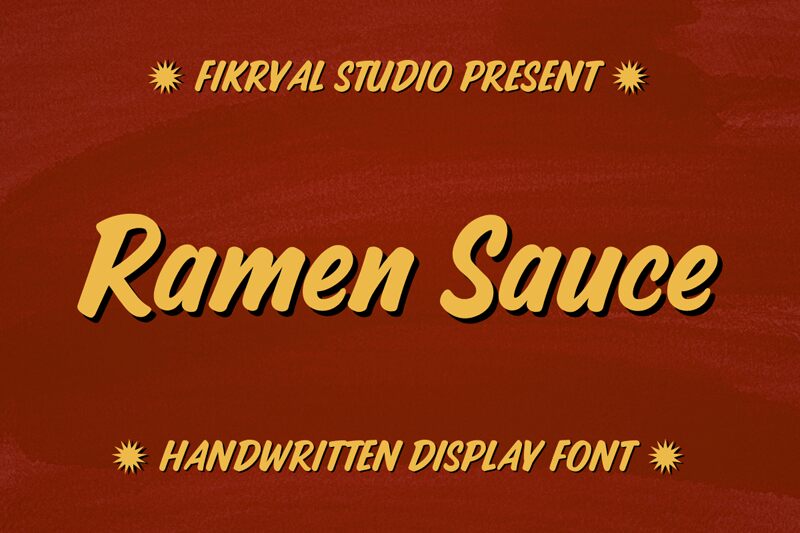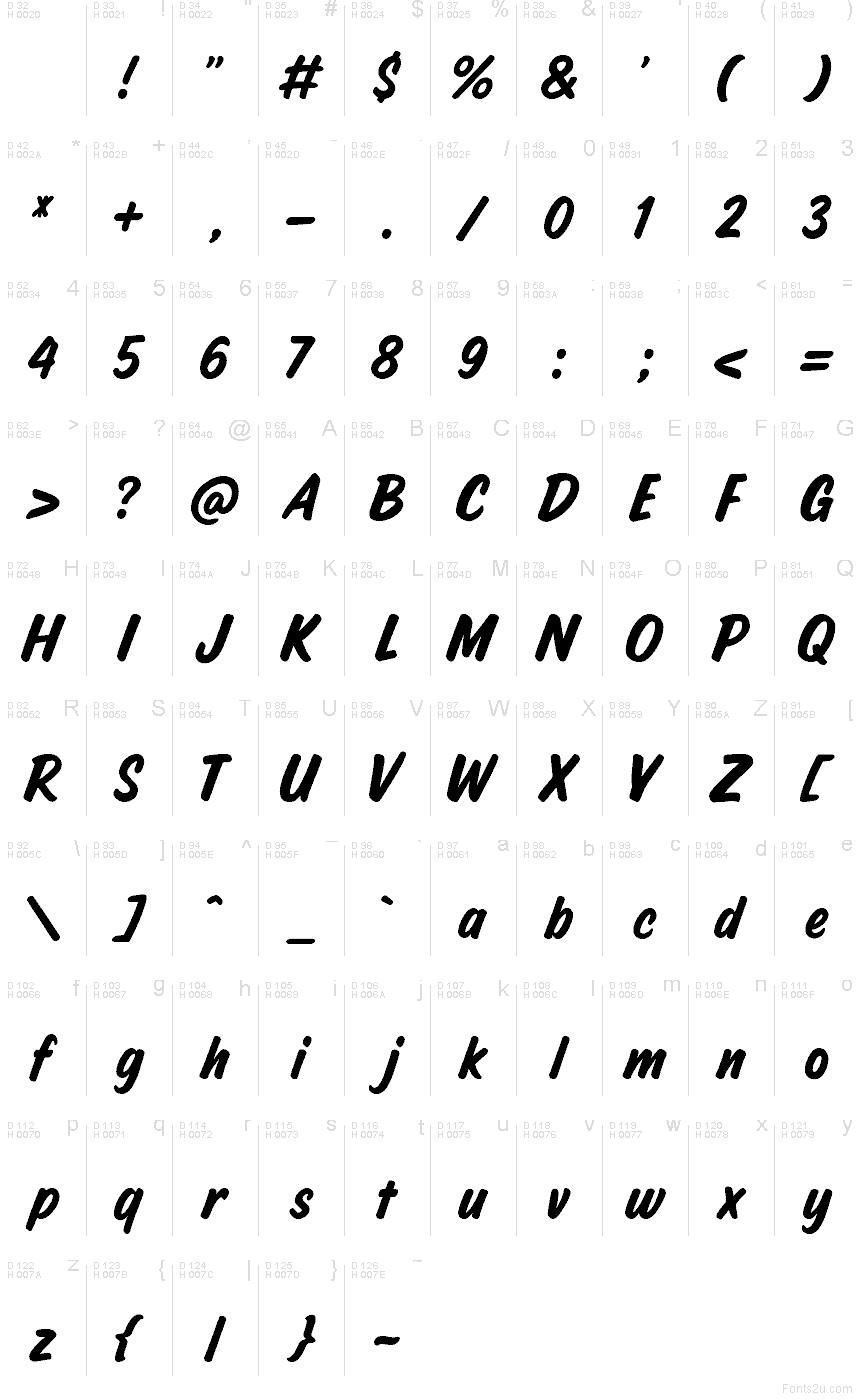
Ramen Sauce by Ramen Sauce is a free brush font with a casual sign-painted swing. The letters feel thick, rounded, and wet with motion, mixing broad strokes, soft joins, and a slight rightward lean that gives the wordmark a friendly, saucy bounce rather than a rough dry-brush bite.
It fits naturally in food branding, cafe menus, takeaway packaging, poster headlines, and social posts where a free font needs warmth and appetite appeal. Because the brushwork stays smooth and full, it also works well for short title cards, sticker text, and logo-style lettering that wants a quick handwritten tone without turning scratchy or restless.